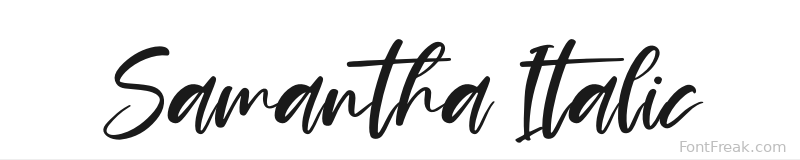
Samantha
Samantha Italic
Samantha is a beautifully crafted script font designed by Perspectype Studio in 2021. This freeware font exudes elegance and sophistication, making it a perfect choice for a variety of creative projects. With its fluid, cursive strokes, Samantha captures the essence of handwritten text while maintaining a polished and professional appearance. The font features moderate stroke weight and contrast, giving it a balanced and visually appealing look. Its generous spacing enhances legibility, making it suitable for both print and digital applications.
The Samantha font is ideal for a range of specific use cases. It shines in wedding invitations, where its graceful curves can set a romantic tone. Additionally, it works wonderfully for branding projects, such as restaurant menus or coffee shop signage, where an inviting and warm feel is essential. Graphic designers will appreciate its versatility for creating engaging social media graphics or promotional materials. Content creators can utilize Samantha in blog headers and website design, adding a personal touch that resonates with their audience.
Targeting graphic designers, small business owners, and content creators, Samantha is a font that helps convey messages with style and flair. Whether you are crafting a heartfelt invitation or designing a chic logo, this font offers the perfect blend of sophistication and warmth.
What truly makes the Samantha font stand out is its ability to evoke emotion through its elegant design. Its unique characteristics and graceful flow lend a touch of authenticity to any project, making it an invaluable addition to any designer's toolkit. Don’t miss the chance to elevate your work with the Samantha font free download, and experience the beauty it brings to your creations.